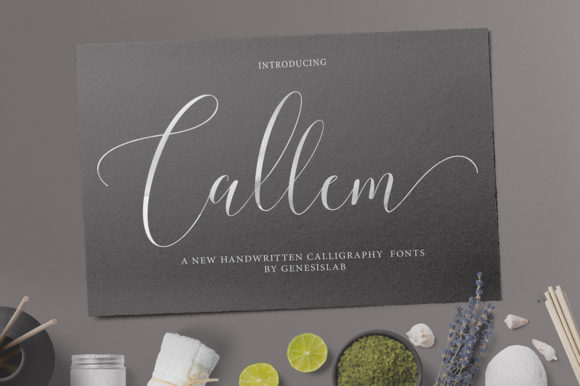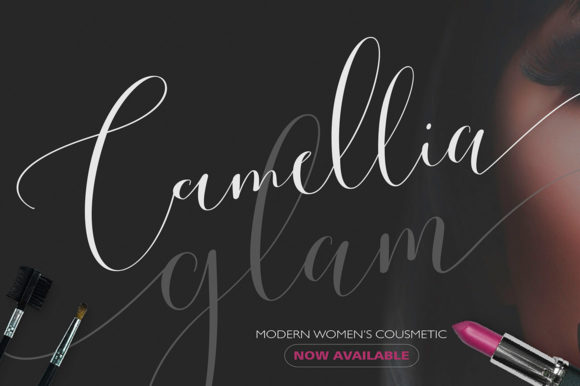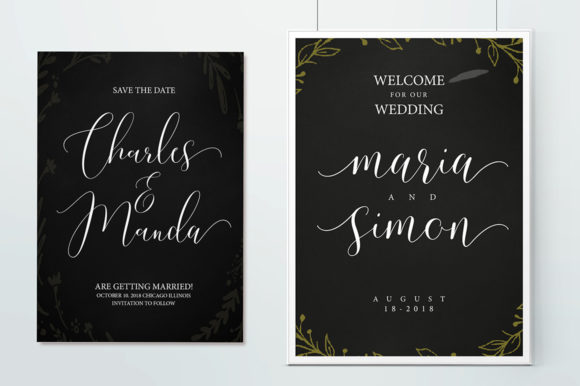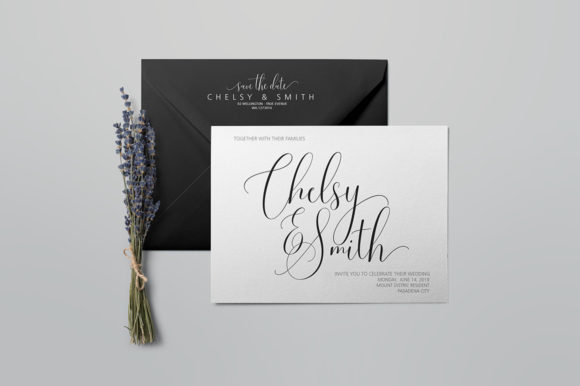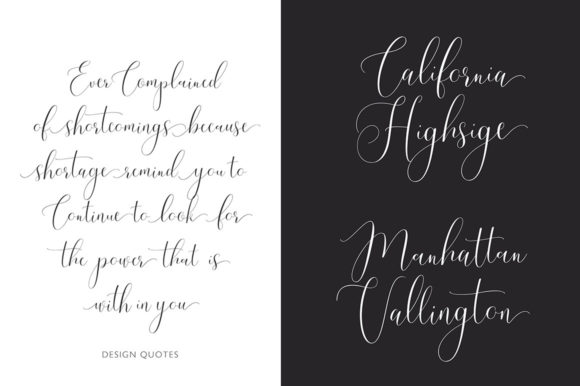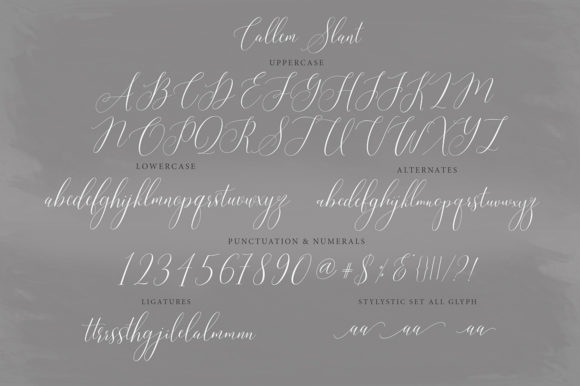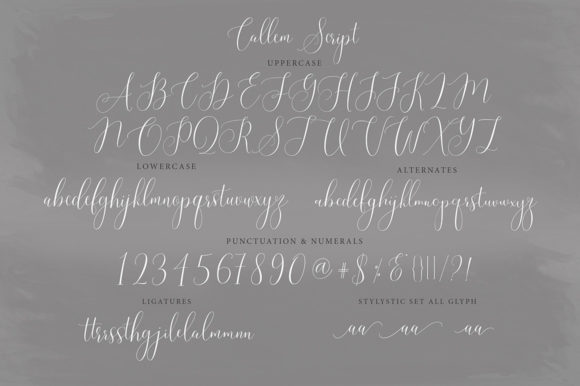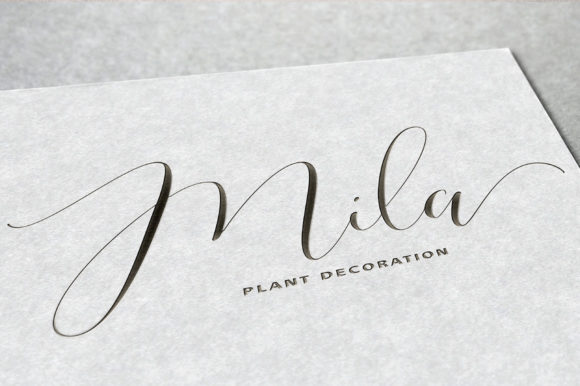
Callem Script Font
Callem is a beautiful calligraphy-style script font that evolved from natural handwriting. It perfectly combines a classic, contemporary style with very natural handwriting so you can take your craft designs to the highest level!
This font is perfect for wedding invitation design, signature, letterhead, logo, shirt, and everything in between. With so many OpenType features available, you can mix and match styles to create the perfect work.